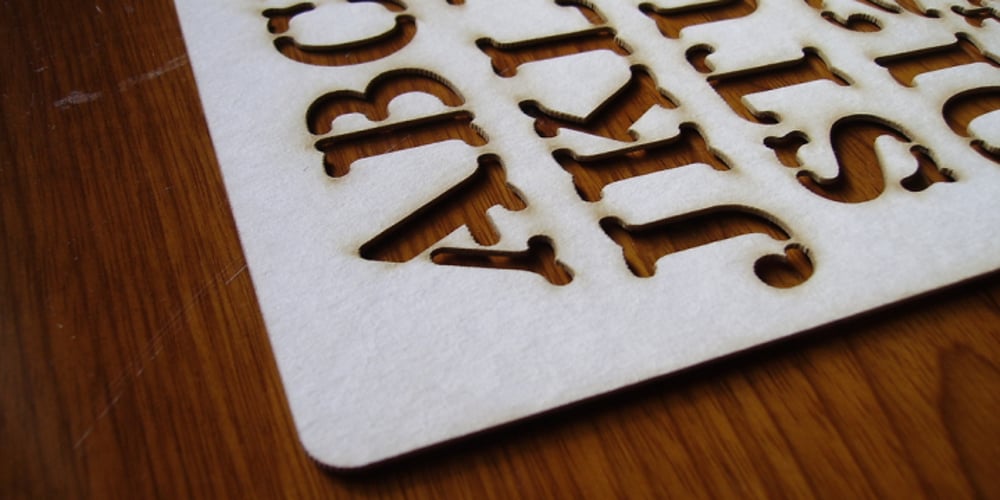
Sra. Stencil Font Family was designed by Sergio Ramírez Llamas and published by Sardiez. Sra. Stencil contains 1 styles and family package options. As most stencil fonts look very masculine and aggressive, Sra. Stencil was a challenge to create a stencil font with feminine personality.